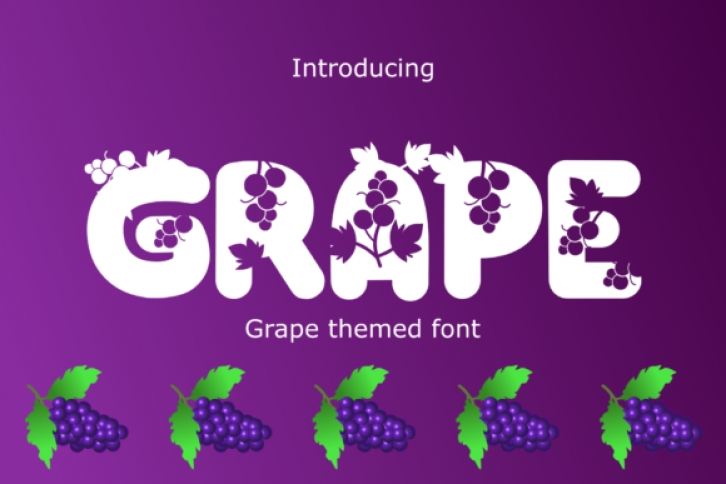
Grape is an incredibly unique display font. Featuring grape ornaments, this font is the perfect choice for any summer related project you wish to create! Add it to your design ideas and notice how it makes them come alive!